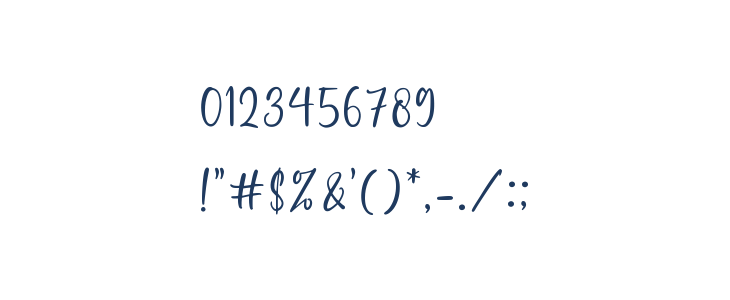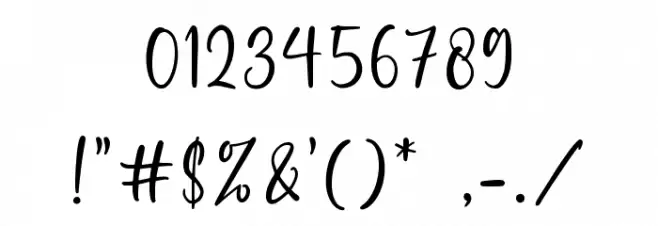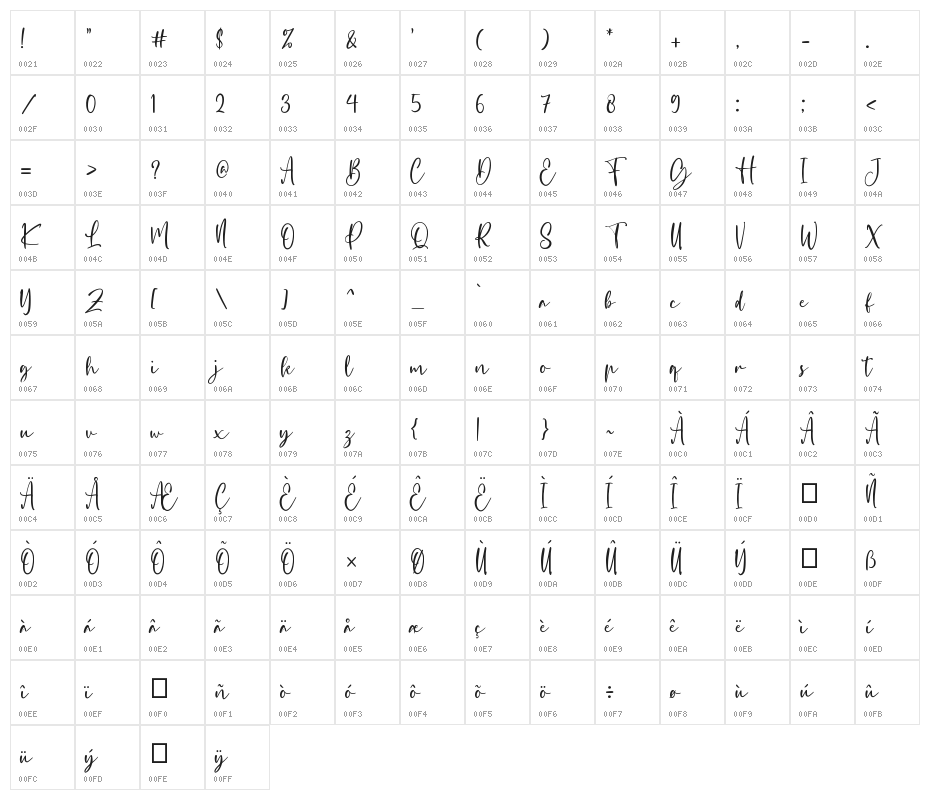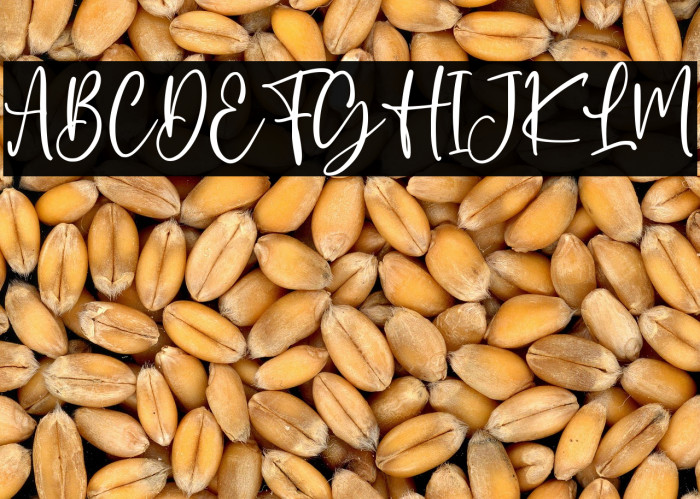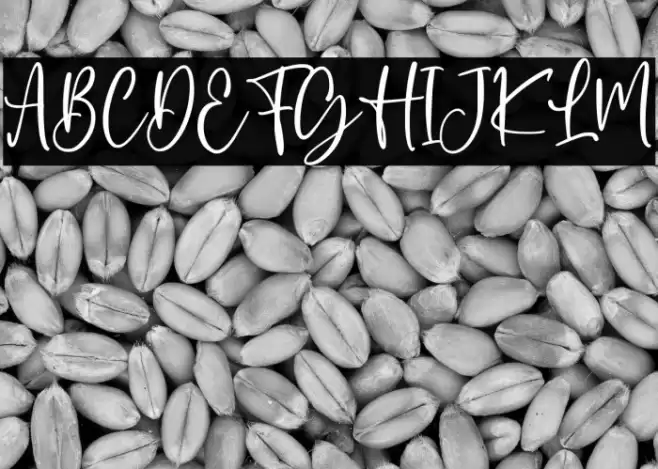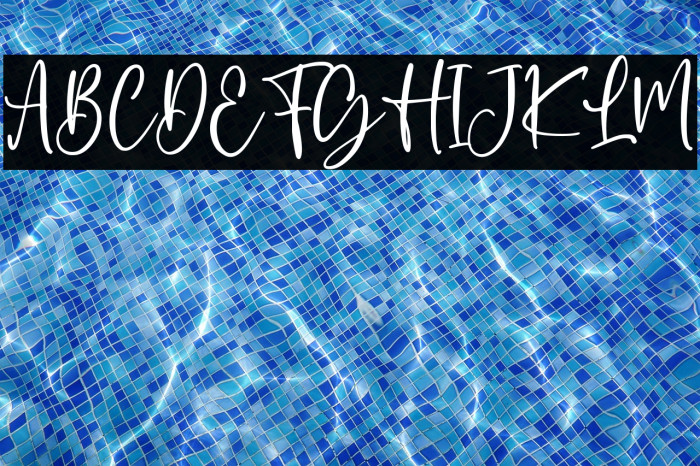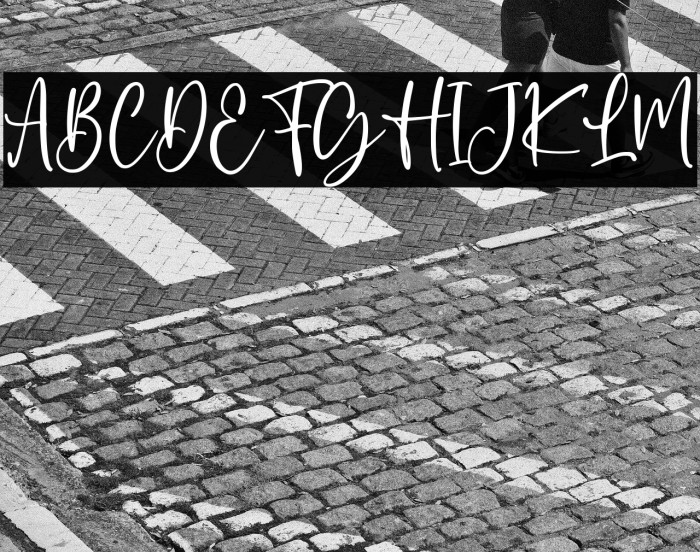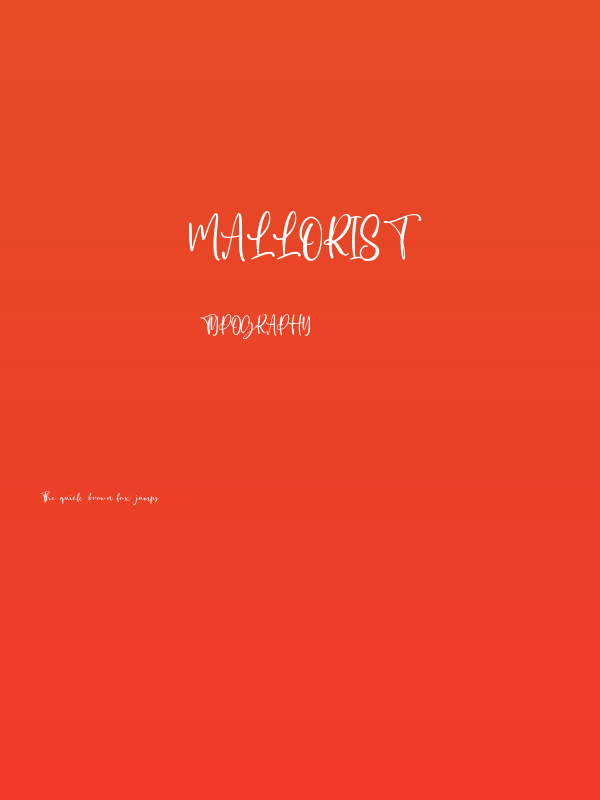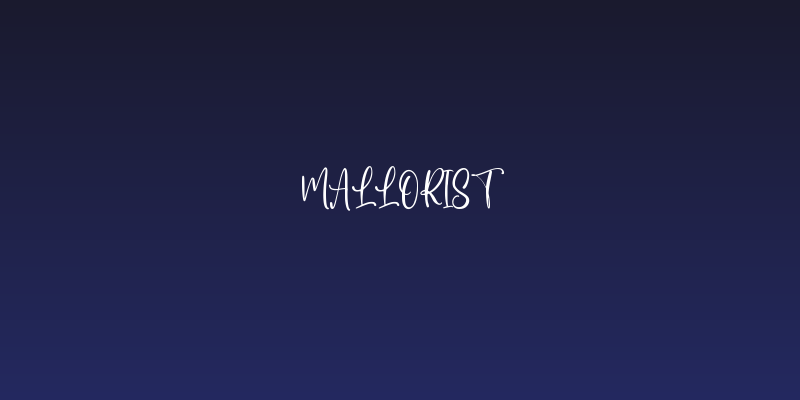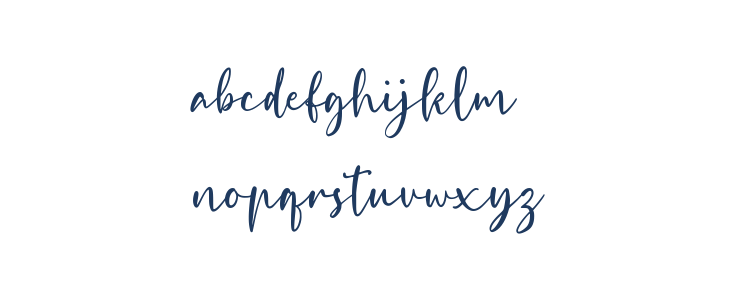
Mallorist Font
Mallorist Description
This font features a lively and flowing script style, characterized by its elegant and cursive letterforms. The uppercase letters are bold and dynamic, with sweeping curves and a sense of movement, while the lowercase letters maintain a consistent flow with a slightly more delicate touch. The numerals are clear and distinct, complementing the overall aesthetic with their rounded and playful design. Special characters are thoughtfully integrated, maintaining the font's cohesive and artistic appearance. This font exudes a sense of creativity and expressiveness, making it ideal for projects that require a personal and artistic touch.
| Use Case | Logos, Invitations, Artistic designs |
| Proposed Projects | Ideal for wedding invitations, greeting cards, branding projects, and artistic designs. |